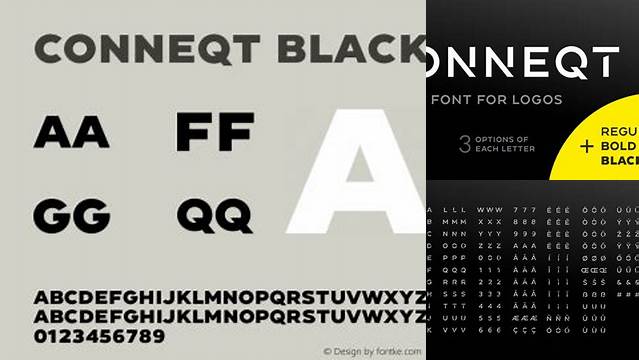
Hey guys, if you're on the hunt for a sleek, modern font that can make your designs pop, you've probably stumbled upon Conneqt Black. It's a favorite among designers for its clean lines and bold presence. And the best part? You can often find Conneqt Black font free download options! In this article, we'll dive deep into everything you need to know about this awesome font, including where to download it, how to use it, and some tips and tricks to make your designs really shine. Buckle up, because we're about to get into the nitty-gritty of Conneqt Black!
What Makes Conneqt Black Font Special?
Okay, so what's the big deal about Conneqt Black? Well, a lot! This font isn't just any typeface; it's a statement. Its primary characteristic is its boldness. The weight is perfect for headlines, titles, and any text that needs to grab attention. Imagine scrolling through a website, and your eyes immediately lock onto a beautifully crafted headline. That's the power of Conneqt Black! The font is designed with a modern aesthetic, making it ideal for a wide range of projects. Whether you're working on a website, a poster, a logo, or even a presentation, Conneqt Black can elevate your design. The clean, geometric shapes of the letters provide a sense of sophistication and clarity. This font is not about complex serifs or elaborate curves; it's about simplicity and impact. This makes it incredibly versatile and easy to read, even at larger sizes.
One of the key advantages of Conneqt Black is its versatility. It's not just a one-trick pony; it can be used in various applications. Consider using it for:
- Headlines and Titles: This is where it truly shines. The bold weight ensures your message is the first thing people see.
- Logos: Its modern aesthetic is perfect for creating a memorable brand identity.
- Posters and Flyers: The font's readability makes it ideal for conveying information quickly.
- Websites: It adds a touch of elegance and sophistication to your web design.
- Presentations: It helps you create visually striking slides that capture your audience's attention.
Another reason why Conneqt Black is so popular is its visual appeal. The font has a strong, confident presence. It conveys a sense of stability and professionalism. This makes it a great choice for businesses and brands that want to project an image of trustworthiness and reliability. The font's clean lines and modern design also contribute to its visual appeal. It's a font that looks great in any context, from a simple text to a complicated design project. The overall effect is a design that's both eye-catching and easy to understand. It’s also really easy to pair with other fonts, which is a huge plus. You can combine it with a lighter font for body text or use it alongside other bold fonts for a more striking contrast. This flexibility makes Conneqt Black a must-have in any designer's toolkit.
Tips and Tricks for Using Conneqt Black Font Effectively
- Use It Sparingly: As much as you love Conneqt Black, don't go overboard. Its bold weight makes it perfect for headlines and titles, but using it for large blocks of text can be overwhelming and difficult to read. A good rule of thumb is to use it for emphasis and visual hierarchy.
- Pair It Wisely: Conneqt Black pairs well with sans-serif fonts that are lighter in weight for body text. This creates a good contrast and helps guide the reader's eye. Experiment with different pairings to find what works best for your project. A great combo is Conneqt Black for headings and a clean sans-serif like Open Sans or Lato for the body text. Remember, contrast is your friend!
Conclusion: Unleash the Power of Conneqt Black